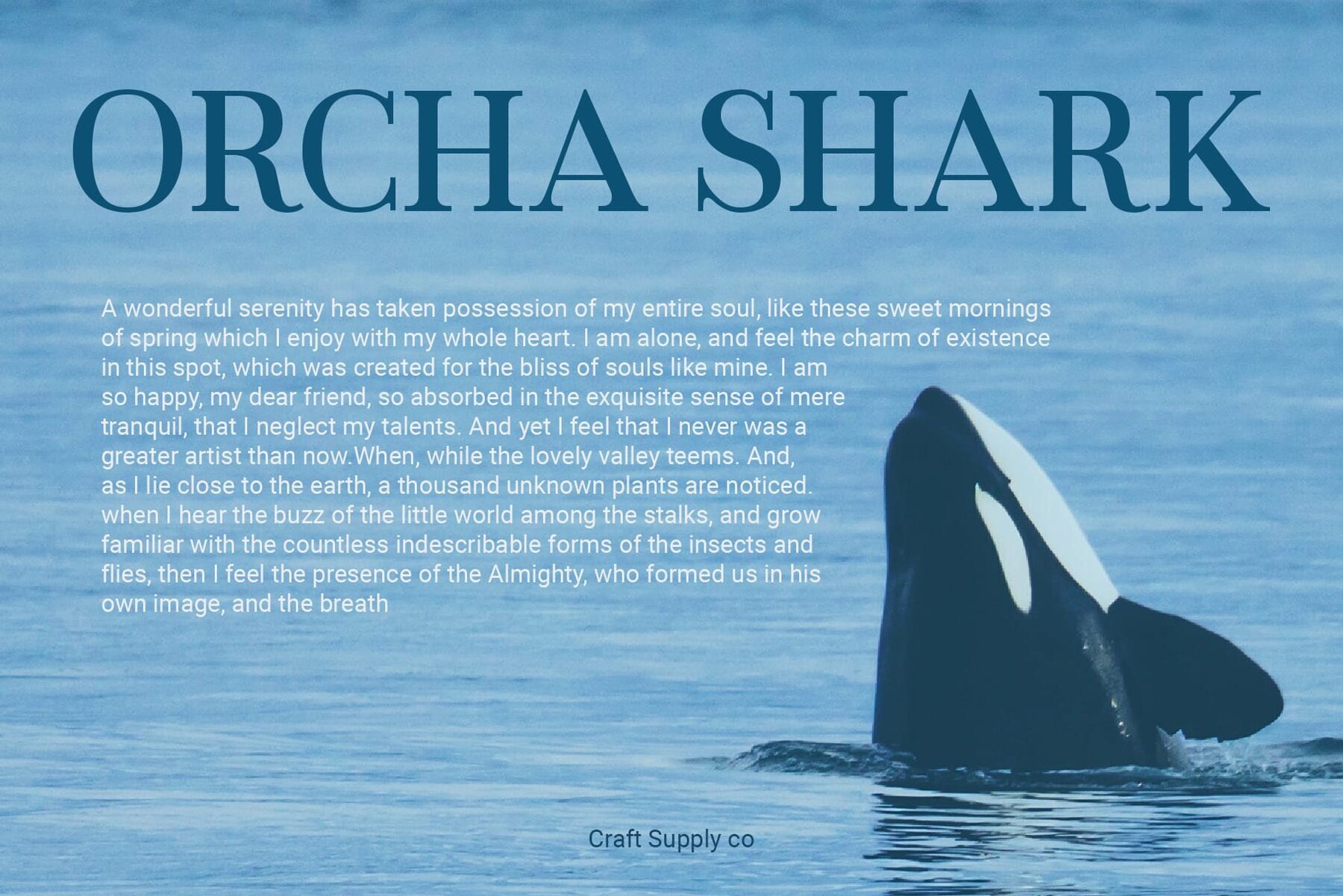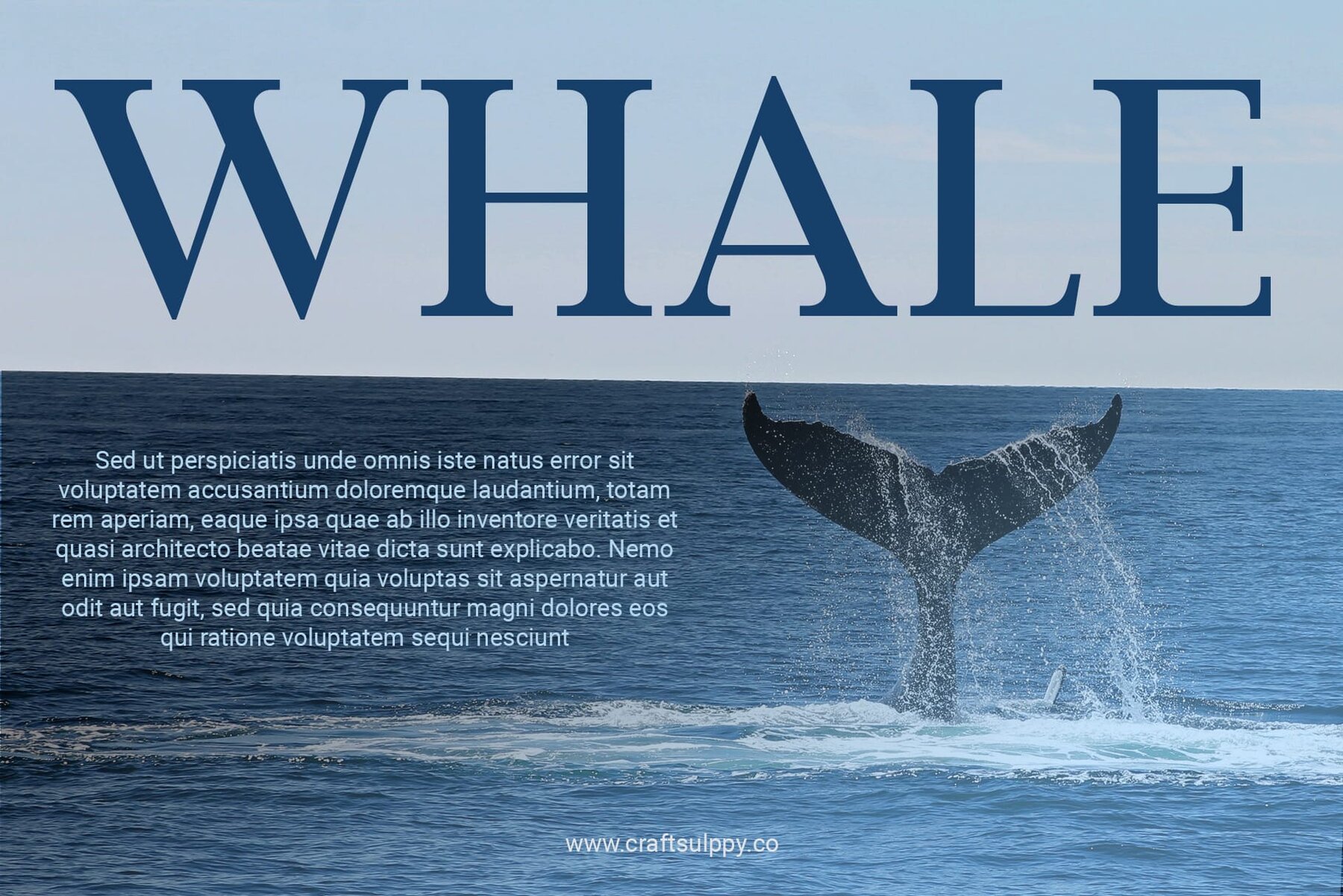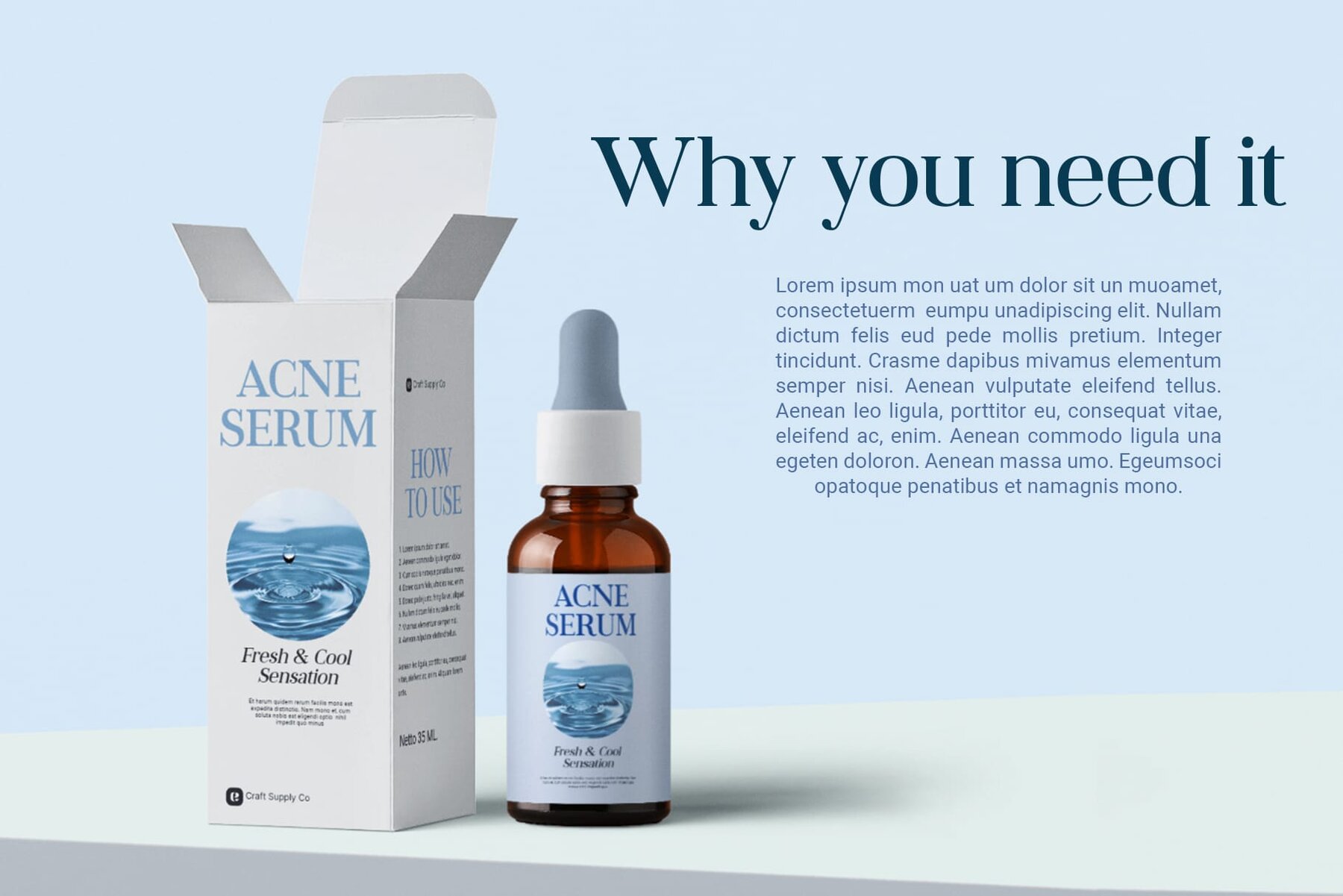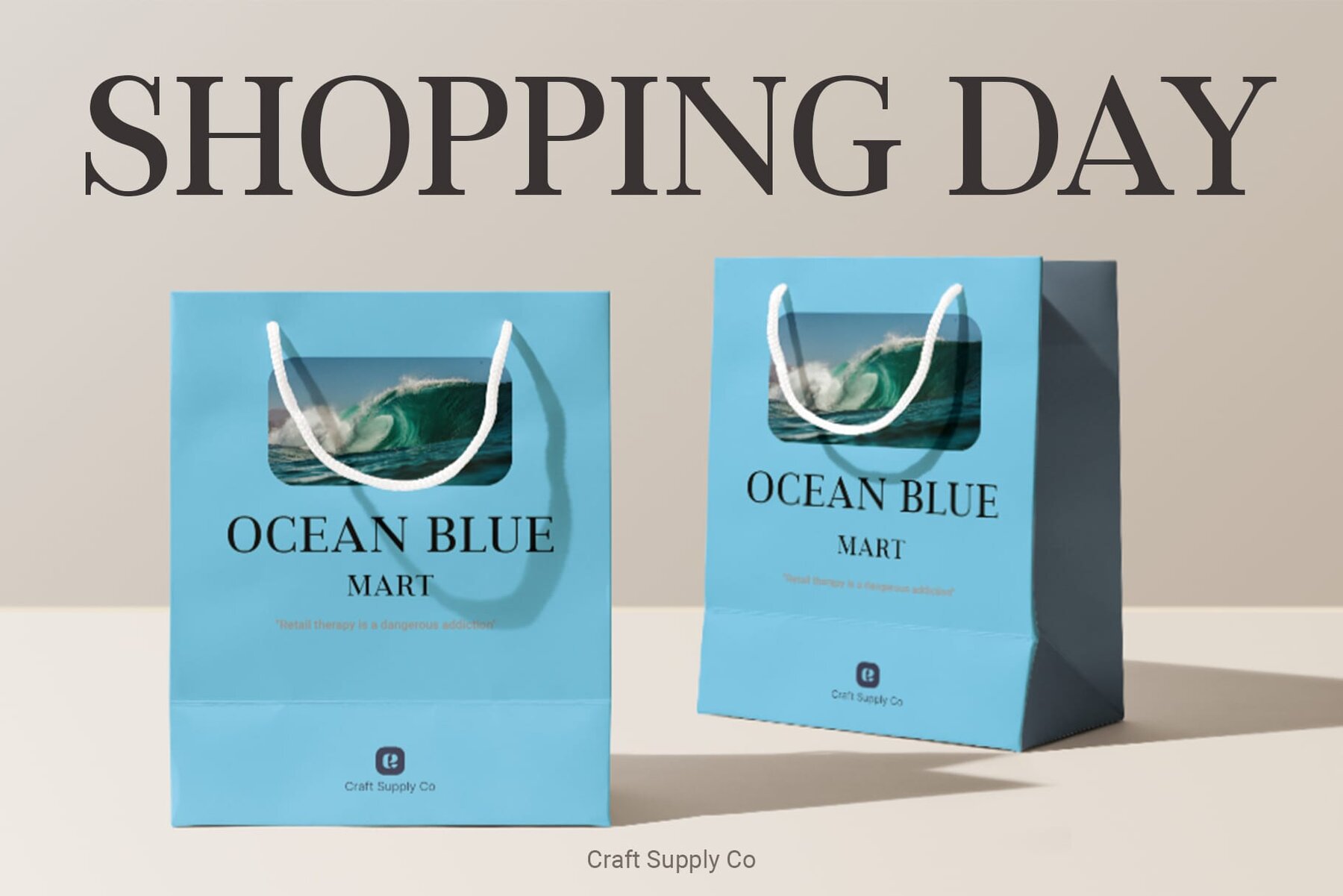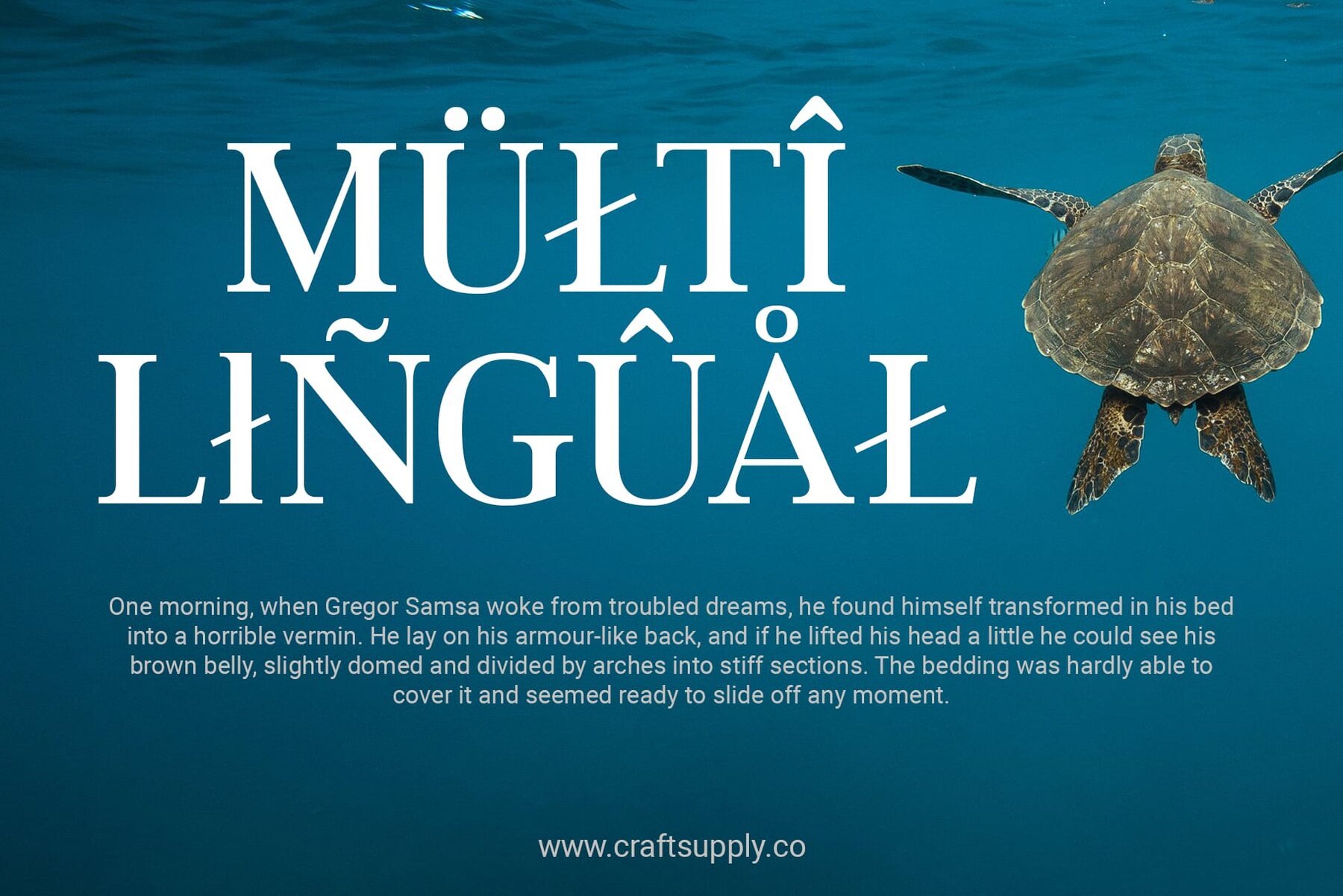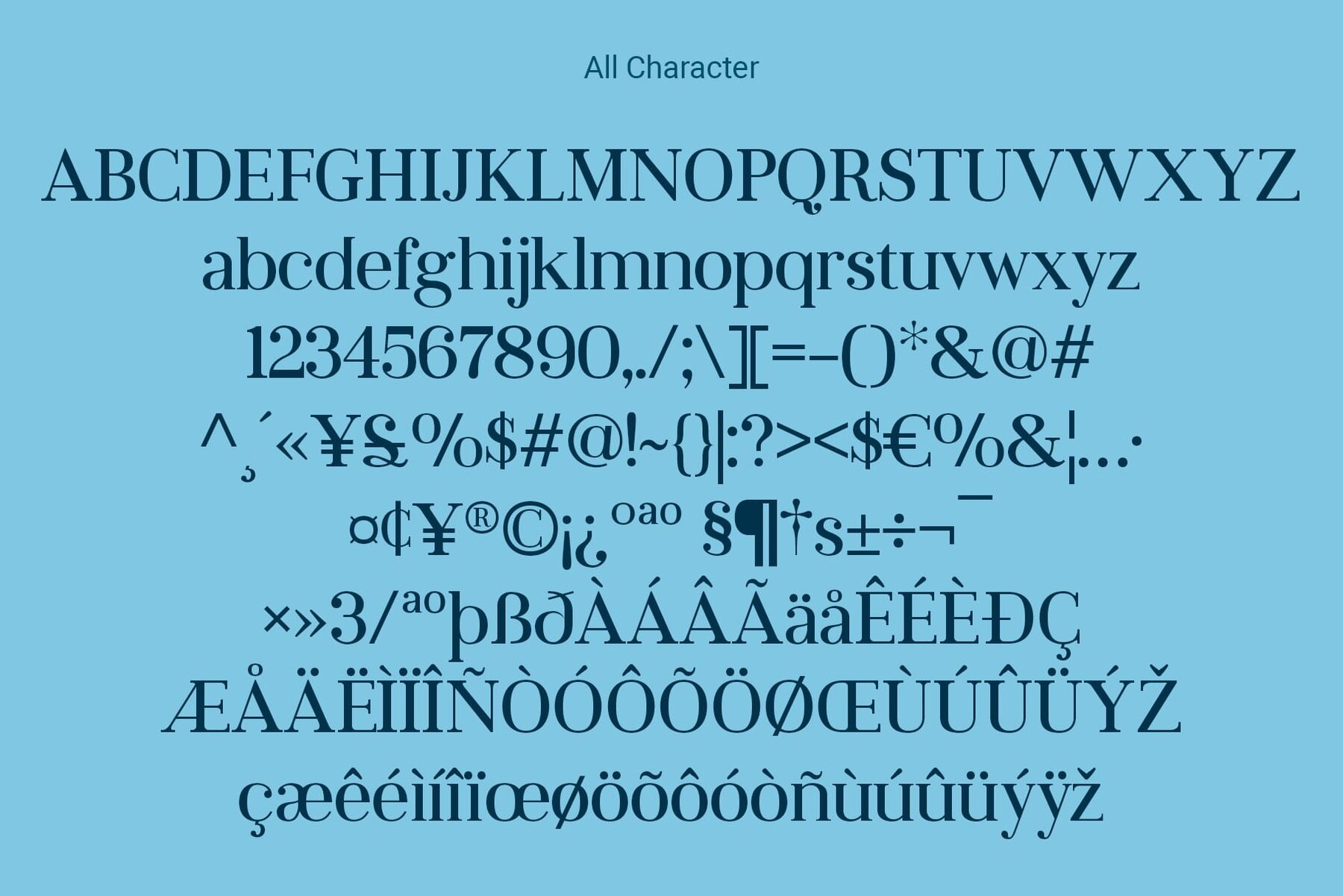
Jevale Font
This typeface boasts a bold, high-contrast design associated with transitional serifs, blending traditional elegance and contemporary sophistication. Its sharp serifs and strong vertical stress lend it a formal and authoritative presence, making it suitable for high-impact headings and editorial use. The clean and refined curves coupled with the heavy weight ensure readability while providing a stylish and versatile choice for graphic designers.